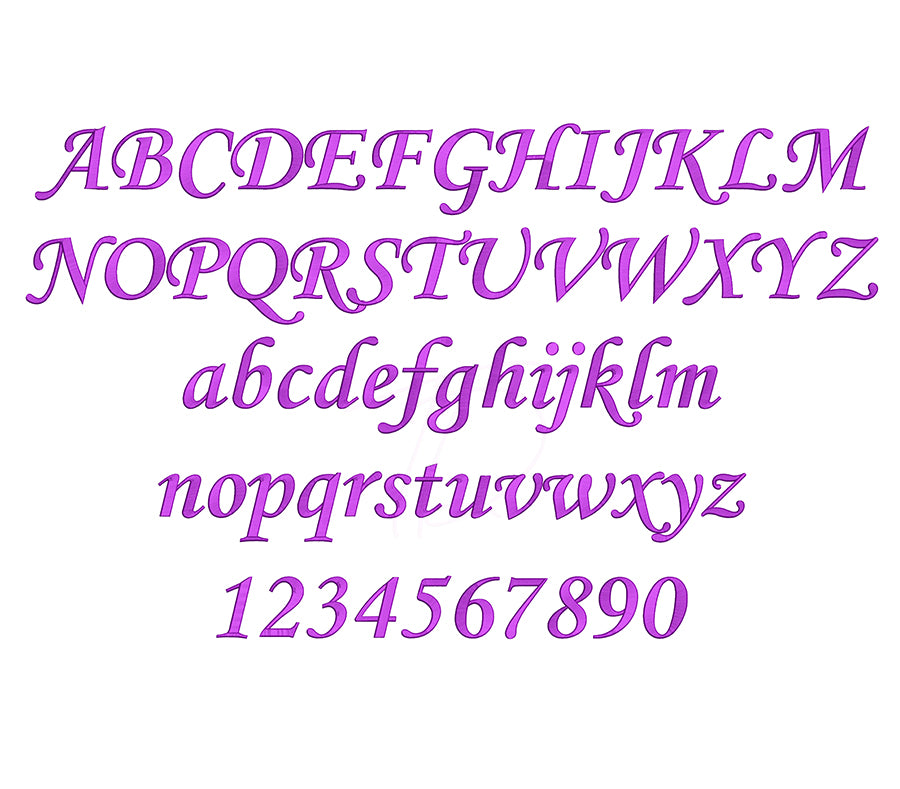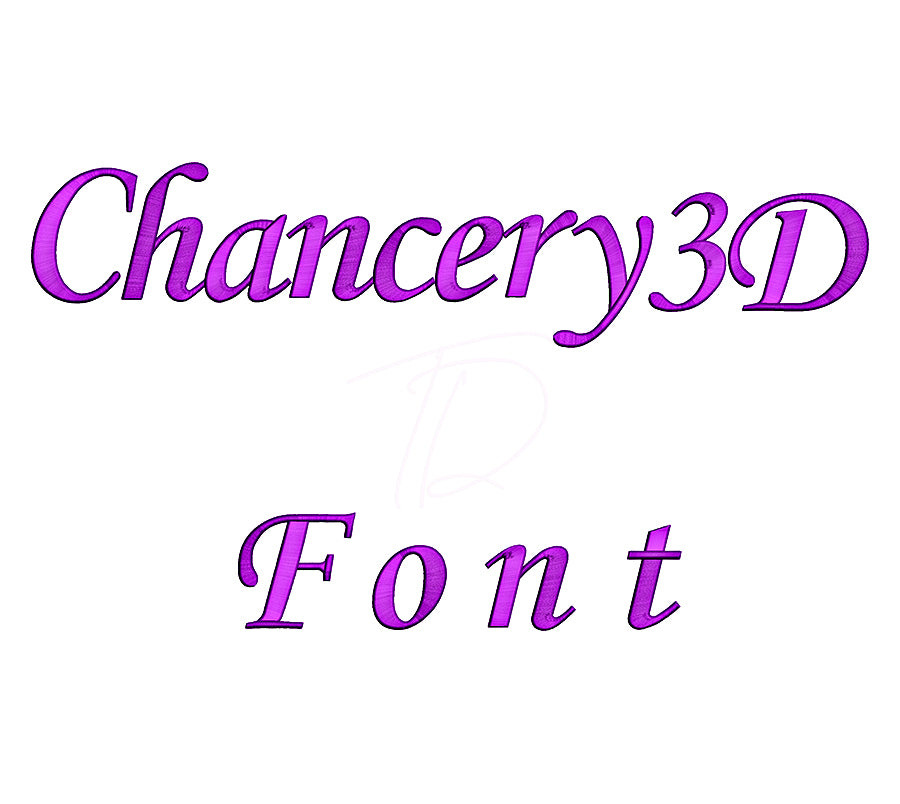
Chancery 3D Puff Embroidery Font
Elevate your embroidery game with the Chancery 3D Puff Embroidery Font — an elegant, calligraphy-inspired font engineered specifically for 3D puff foam embroidery. ✨🧵
The Chancery style's flowing, graceful letterforms take on stunning dimension when stitched over puff foam, making it ideal for snapback hats, beanies, varsity jackets, and premium apparel where bold, raised lettering makes a statement.
- Includes full alphabet (A–Z, a–z) and numbers